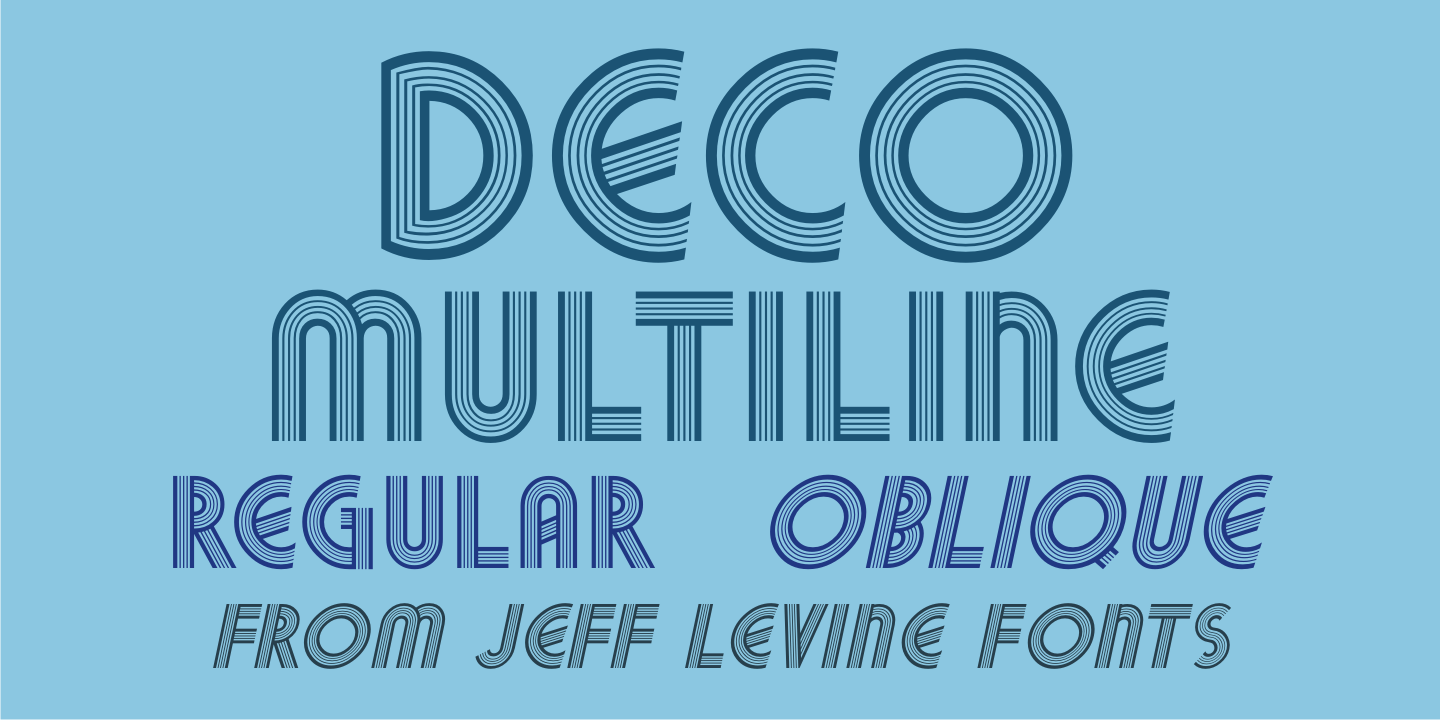
Deco Multiline
The 1934 Dick Powell-Ruby Keeler-Joan Blondell movie musical 'Dames” gave us the classic song 'I Only Have Eyes for You”, but the sheet music for the song had the movie title hand lettered in a multi-line Art Deco sans serif design that just begged to be turned into a type font.
From these few letters now comes Deco Multiline JNL, which is available in both regular and oblique versions.